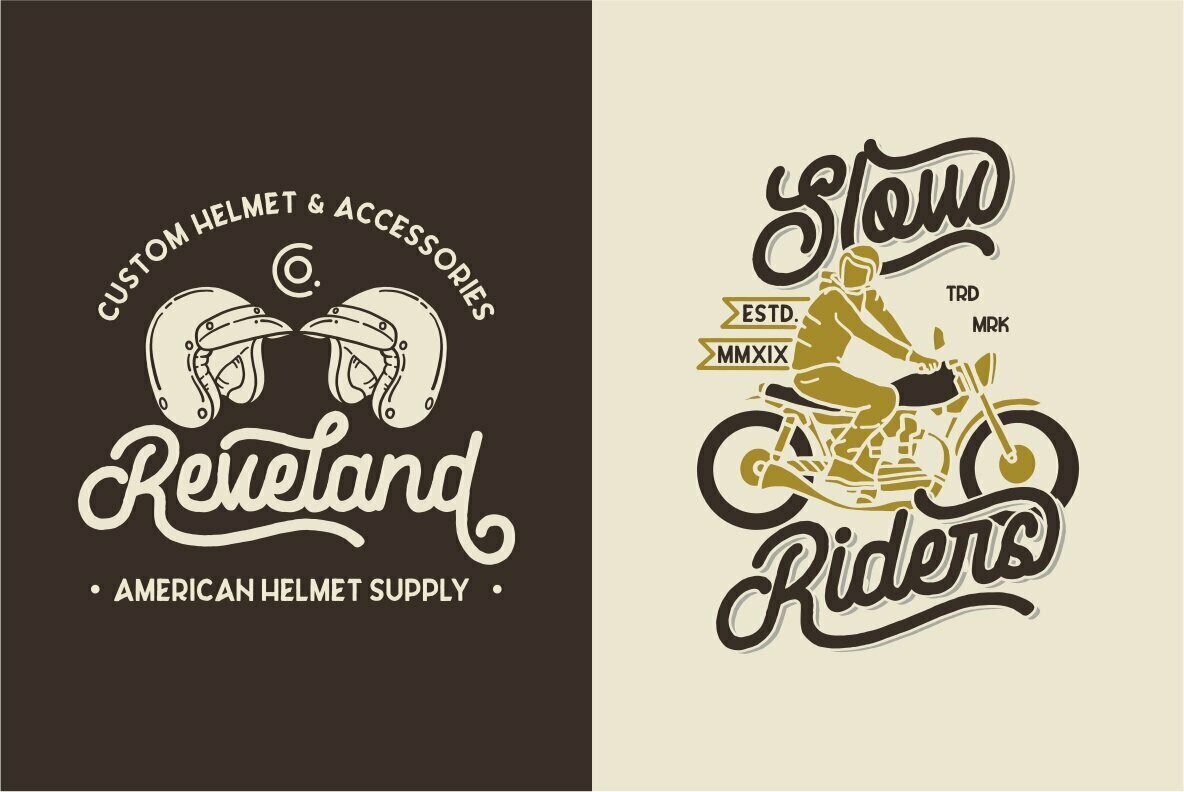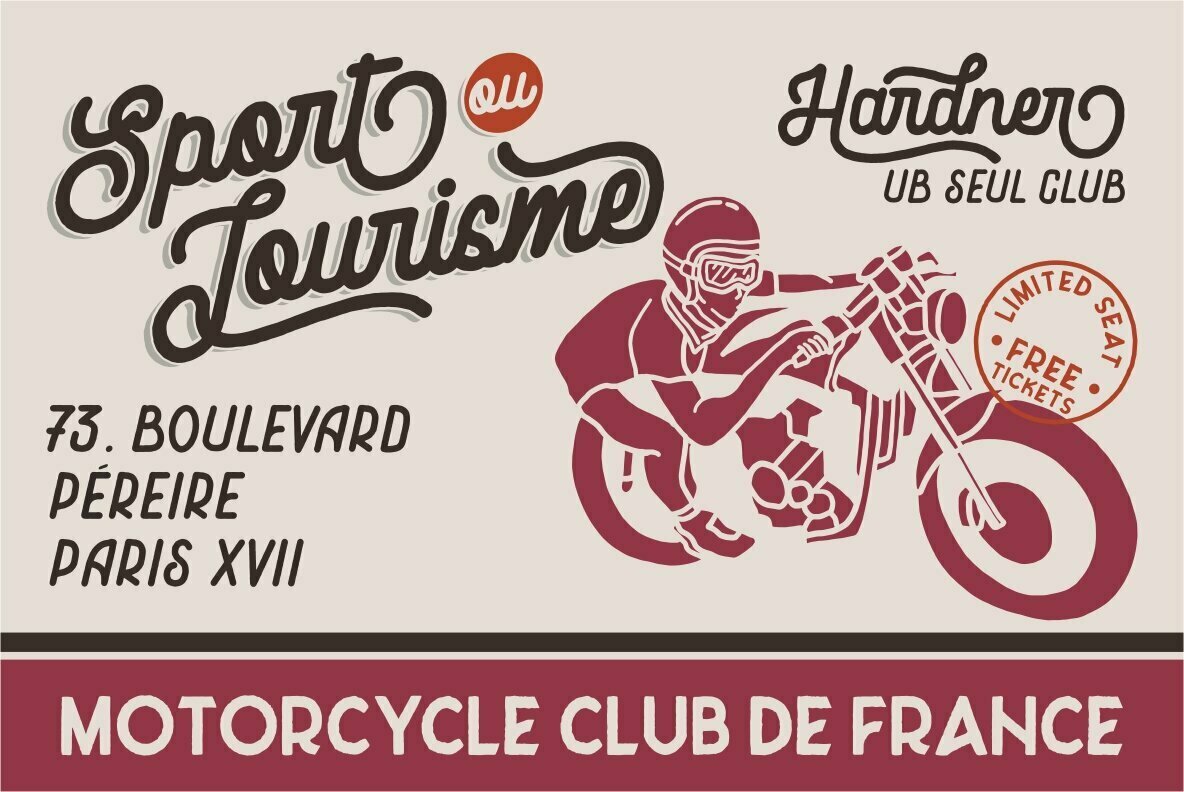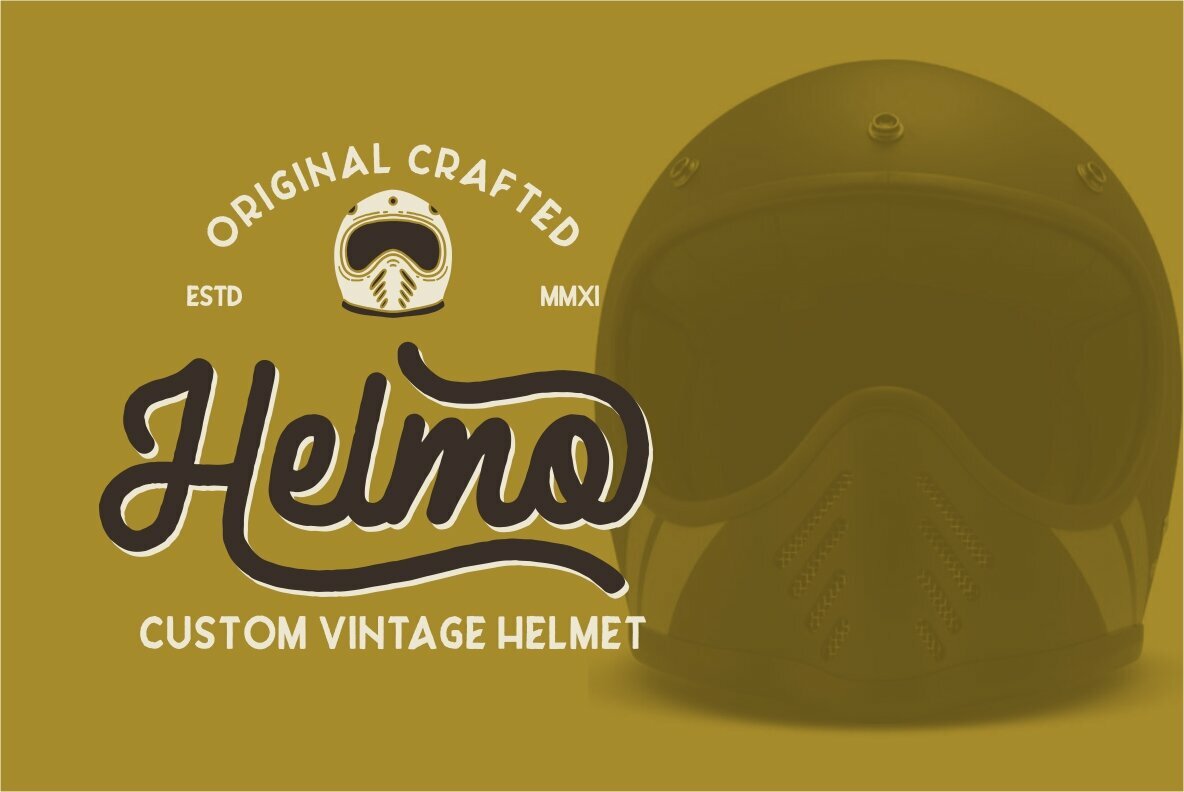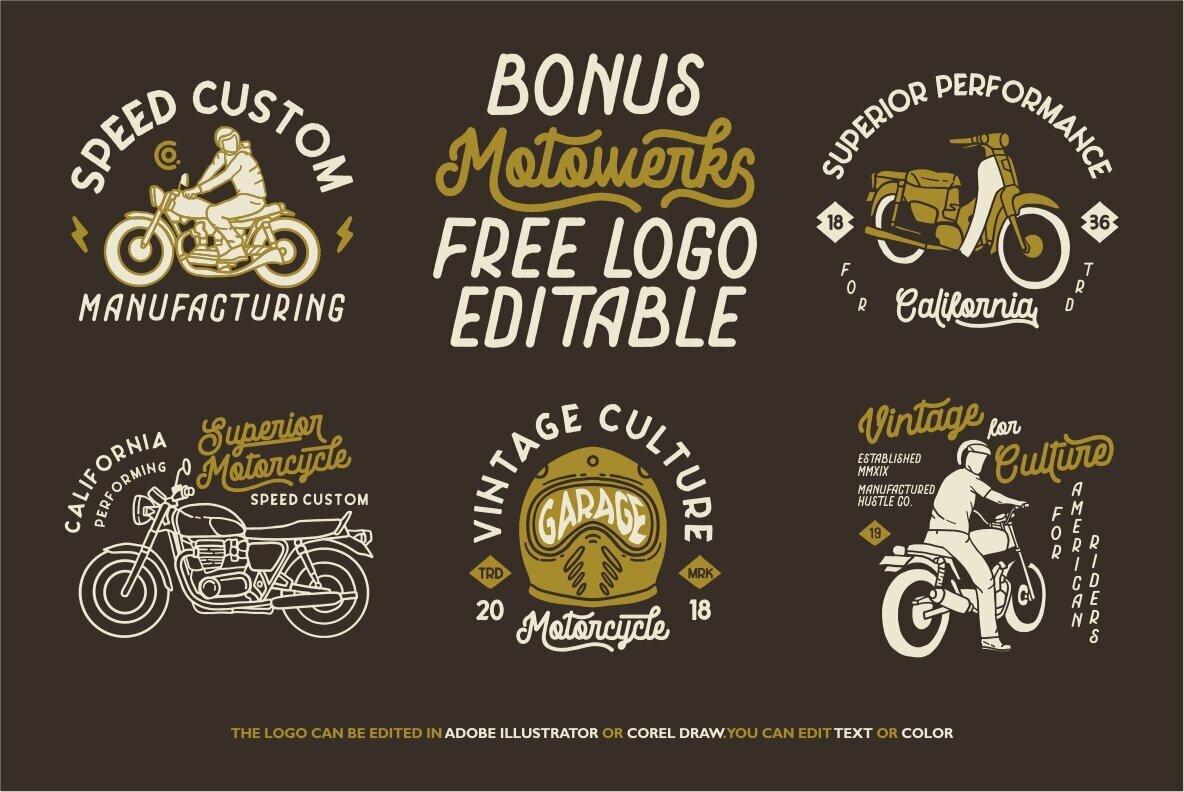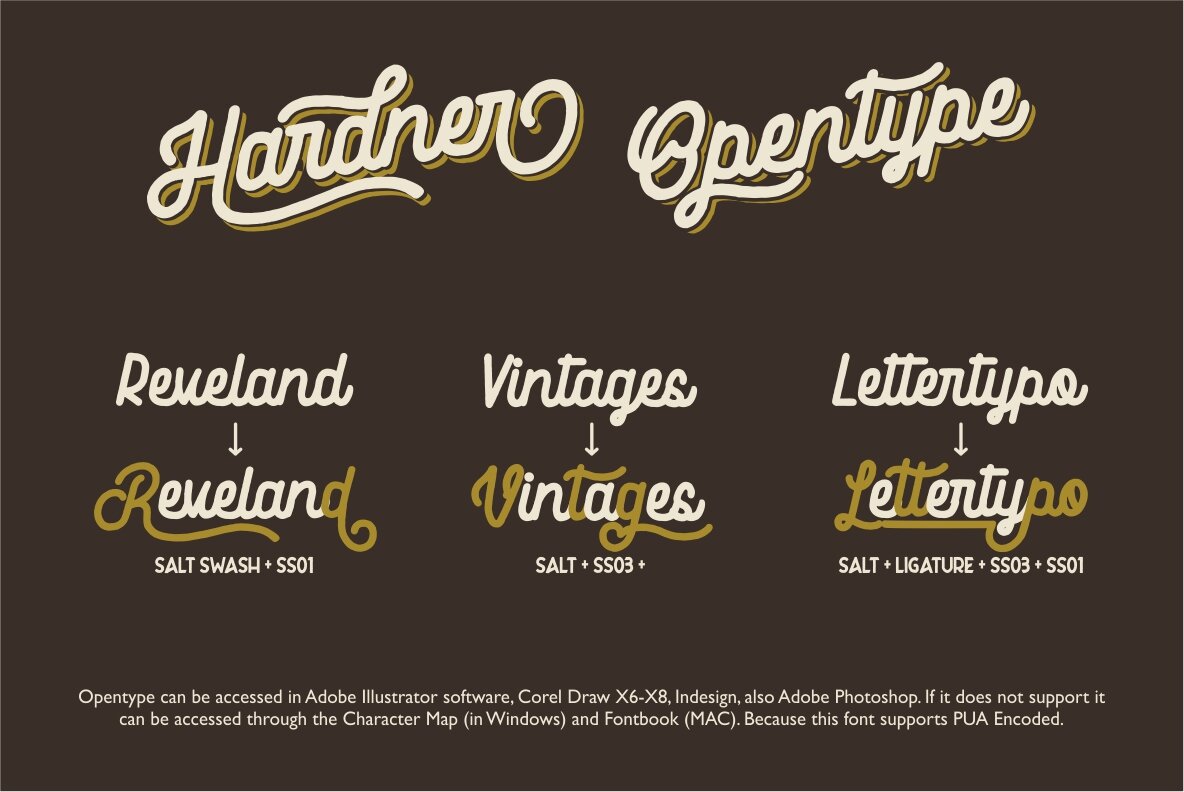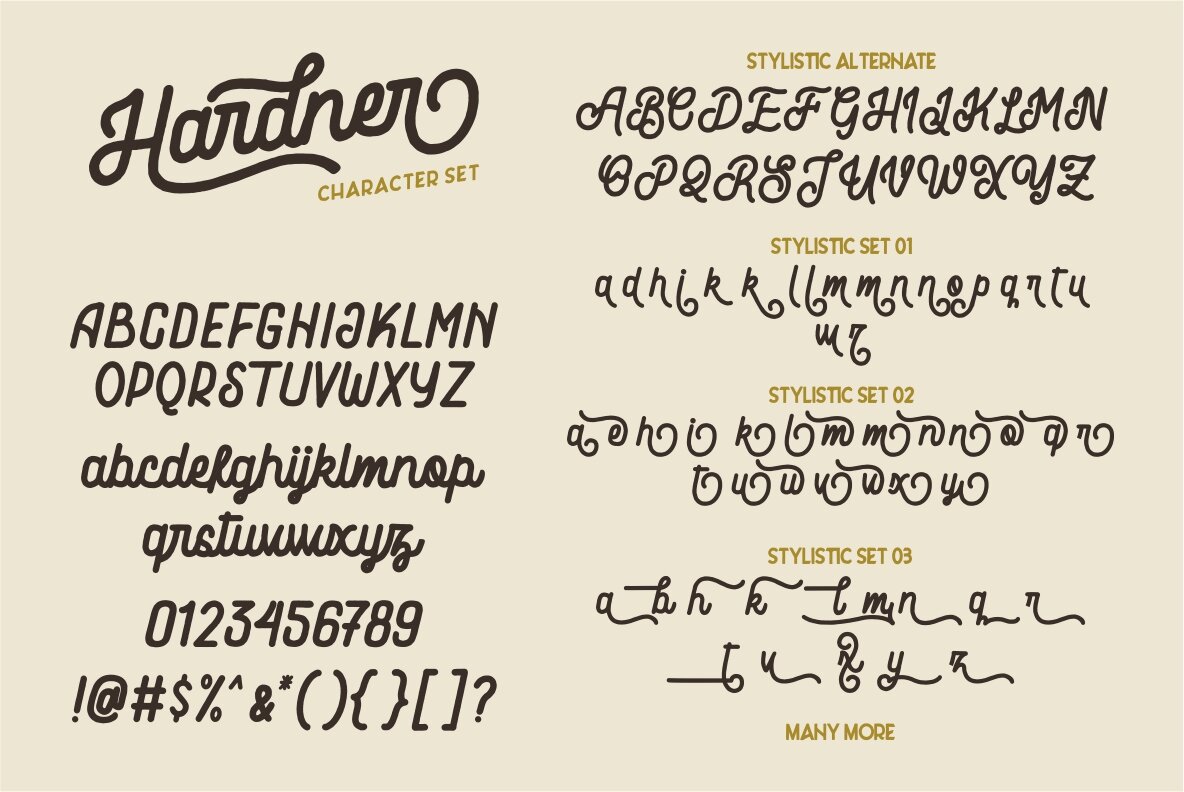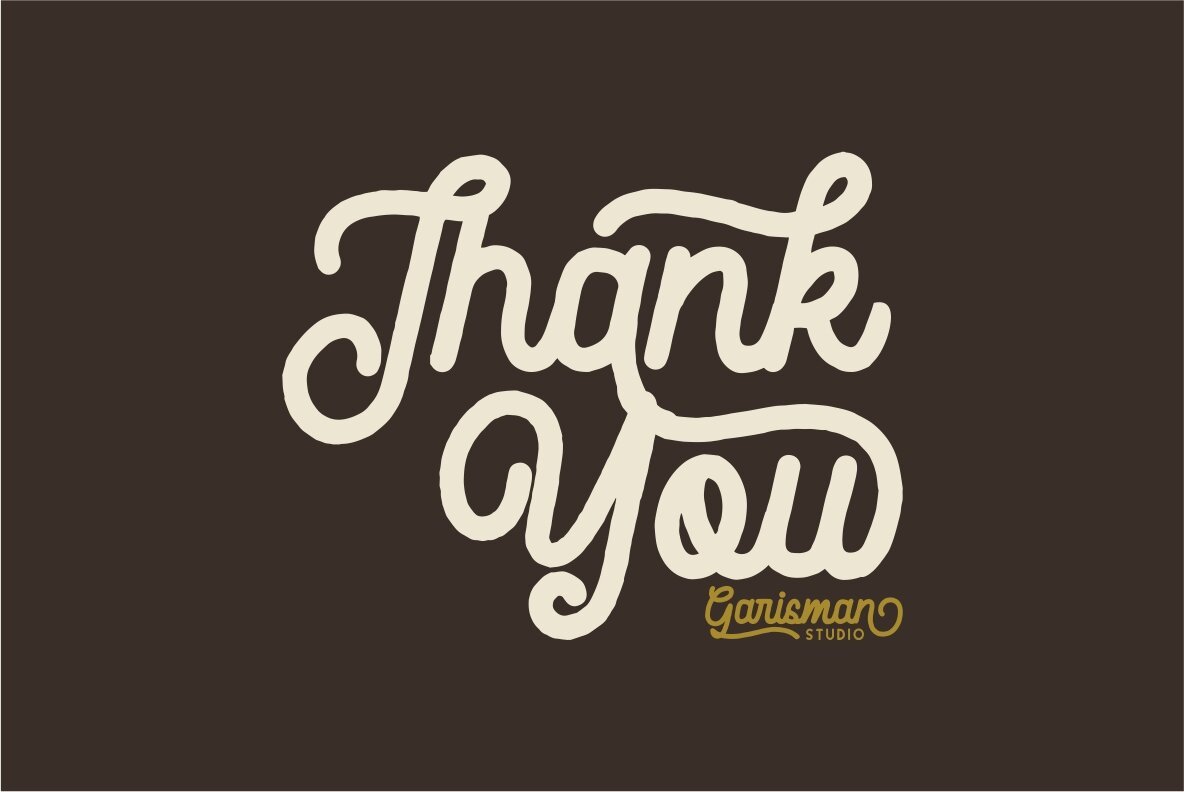
Hardner Font
Hardner is a unique blend of vintage motorcycle aesthetics with modern design sensibilities, resulting in a distinctive handmade monoline display typeface. This versatile font is well-suited for a variety of design projects including logos, hand lettering, branding, labels, t-shirt designs, and posters.Hardner: Vintage-Inspired Monoline Display Typeface